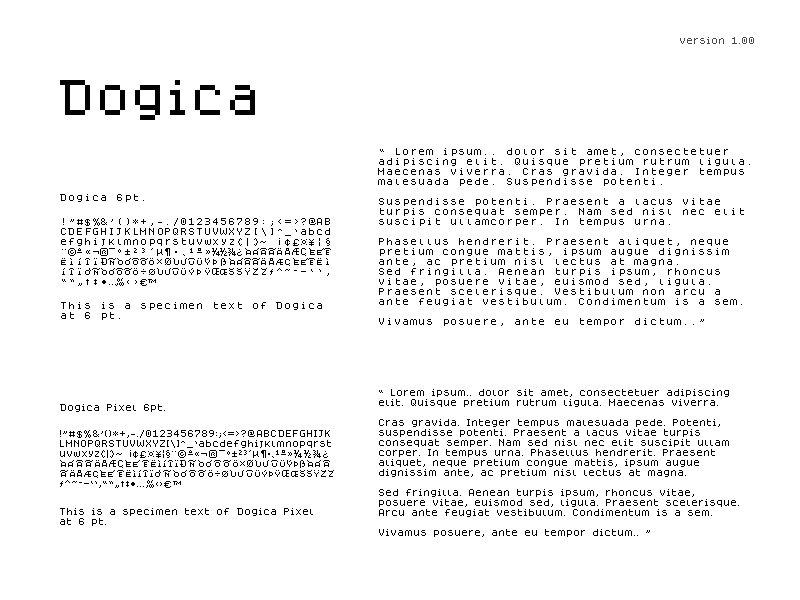
Dogica Pixel
Dogica is a monospace typeface made with Inkscape and FontForge and tailored for GB Studio.
It features more than 200 characters in a 8x8 grid and comes in two styles: monospace and pixel, the kerned version. Two pictures for GB Studio included.
Still in development, a bold version is in the making.